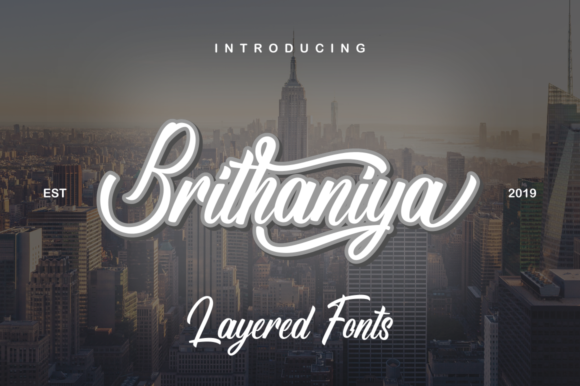
The Designer’s Delight: Getting to Know Brithaniya Font
I’ll never forget the time I was working on a branding project for a trendy new cafe. I had the logo concept nailed, but I just couldn’t find the right font to complement it. The client wanted something modern, yet elegant; something that would make their brand stand out in a crowded market. That’s when I stumbled upon Brithaniya, a modern and cool handwritten font that instantly caught my attention.
With its unique style and contemporary vibe, Brithaniya was the perfect fit for the cafe’s brand. I was inspired by its effortless charm and knew I had to share it with fellow designers, crafters, and creative hobbyists. In this article, we’ll dive into the world of Brithaniya, exploring its features, uses, and everything in between.
- ✨ Unique and modern handwritten style that’s perfect for branding and creative projects
- ✅ Extensive character set, including OpenType features and glyphs
- ✅ Works beautifully with both digital and print applications
While Brithaniya is an amazing font, there are a few things to keep in mind:
- ⚠️ Some users may find the font a tad too casual for very formal or traditional designs
- 🤔 Limited availability of certain language scripts
The Story Behind Brithaniya: Designer Inspiration
Brithaniya was designed with the goal of creating a modern, yet approachable handwritten font. Inspired by contemporary calligraphy and lettering, the font’s creator aimed to craft a unique and versatile typeface that would appeal to designers and creatives alike. With its distinctive character and extensive feature set, Brithaniya has quickly become a favorite among designers and crafters.
Q: What type of projects is Brithaniya best suited for?
A: Brithaniya is perfect for branding, packaging, and digital projects that require a modern and elegant touch.
Q: Does Brithaniya support OpenType features?
A: Yes, Brithaniya includes extensive OpenType features, glyphs, and stylistic alternates for added versatility.